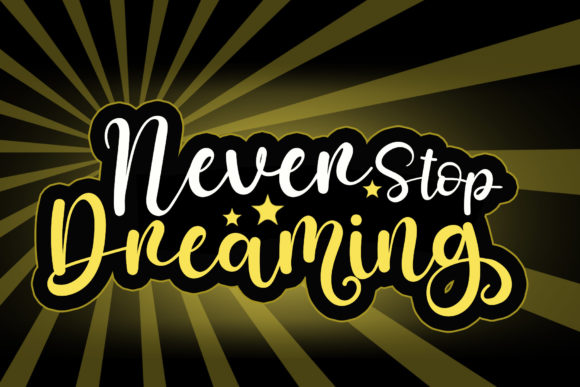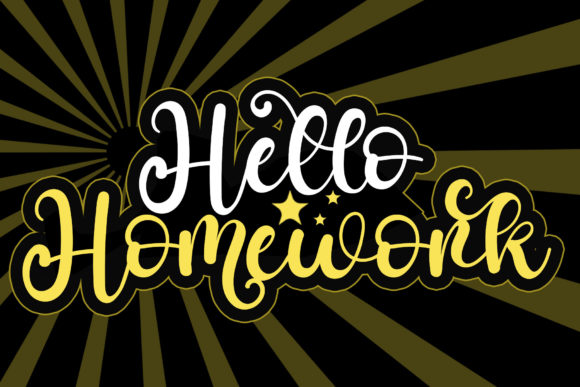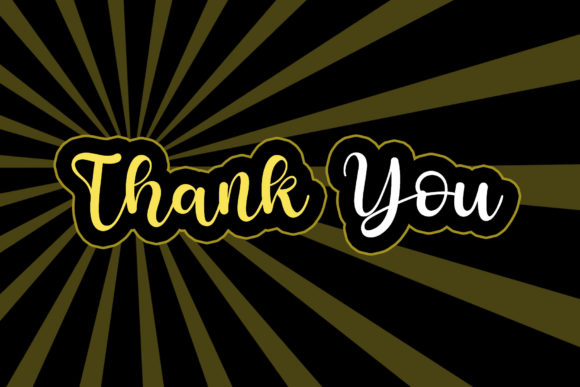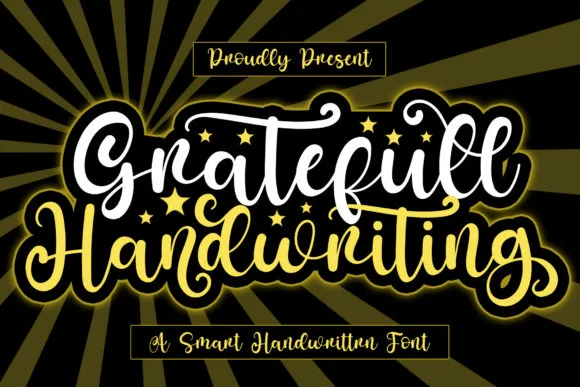
Gratefull Handwriting Font
About Gratefull Handwriting Font
“Gratefull Handwriting” is described as a festive and sweet calligraphy typeface featuring characters that dance along the baseline. The font is presented as having a festive and celebratory quality, with the promise of adding a luxury spark to any design project.
The use of terms like “festive” and “sweet” suggests a typeface designed to evoke a sense of joy and warmth, making it suitable for projects associated with celebrations and special occasions. The mention of characters dancing along the baseline adds a dynamic and lively aspect to the font’s description.
The idea that “Gratefull Handwriting” will add a luxury spark implies that it carries an element of sophistication and elegance, making it suitable for projects that require a touch of refinement.
In summary, “Gratefull Handwriting” is presented as a calligraphy typeface with festive and sweet characteristics, promising to bring a luxurious touch to various design projects. Its dynamic baseline and the suggestion of a luxury spark position it as a font that can add joy, warmth, and sophistication to celebratory and special occasion designs.